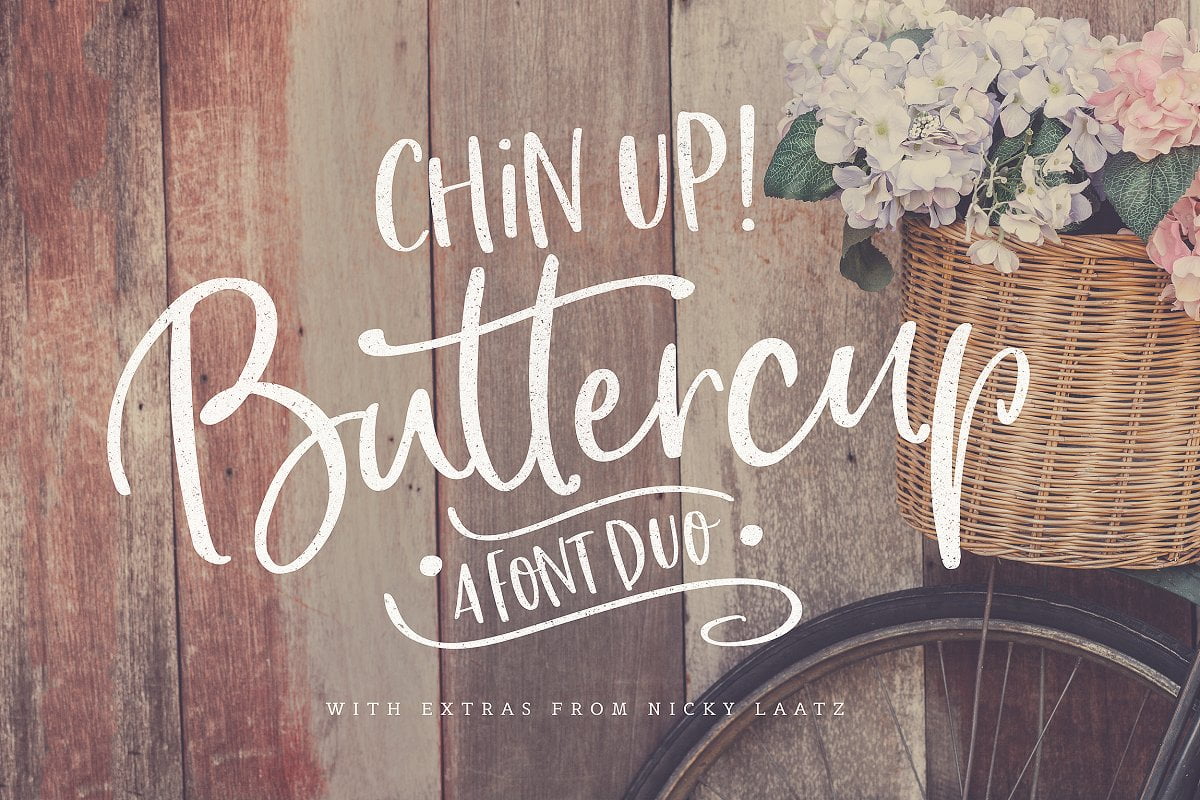
Chin up buttercup font family detail’s i want to introduce everyone to chin up buttercup! It is best to use it for tags, scrapbooking, signs, window art, photos, website, wall art, branding, quotes, cards, and.
A perfectly playful new font pair with a handy set of complimentary illustrations.
Creative and casual, together or apart, chin up buttercup fonts and illustrated doodles allow you to make tons of gorgeous typographic designs in a jiffy, just in time for all your. Chin up buttercup font is an elegant calligraphy typeface. A perfectly playful new font pair with a handy doodle font consisting of 40 complimentary illustrations.
A perfectly playful new font pair with a handy set of complimentary illustrations. Creative and casual, together or apart, chin up buttercup fonts and illustrated doodles allow you to make tons of gorgeous typographic designs in a jiffy, just in time for all your christmas labels, cards and branding too!. Creative and casual, together or apart, chin up buttercup fonts and illustrated doodles allow you to make tons of gorgeous typographic designs in a jiffy, just in time for all your.
This font is free for personal use only. Consisting of a script, a. Consisting of a script, a cute sans serif and a handy doodles font, chin up buttercup are perfect companions for designing greeting cards, quotes, typographic designs, wall art, branding, packaging, websites, photo & photography overlays,.
A perfectly playful new font pair with a handy set of complimentary illustrations. Chin up buttercup contains 3 styles and family package options. Perfect for diy projects, greeting cards, labels, quotes.
Consisting of a script, a cute sans serif and a handy doodles font, chin up buttercup are perfect companions for designing greeting cards, quotes, typographic designs, wall art, branding, packaging, websites, photo & photography overlays,. This calligraphy font is the perfect script typeface for making outstanding and original designs. Creative and casual, together or apart, chin up buttercup fonts and illustrated doodles allow you to make tons of gorgeous typographic designs in a jiffy, just in time for all your christmas labels, cards and branding too!
Chin up buttercup font is an elegant calligraphy typeface. St mark's lion, venice by marc scottparkin / 500px in. A perfectly playful new font pair with a handy doodle font consisting of 40 complimentary illustrations.
It is a new font pair with a doodle font that consists of 40 illustrations. A perfectly playful new font pair with a handy doodle font consisting of 40 complimentary illust. Consisting of a script, a cute sans serif and a handy doodles font, chin up buttercup are perfect companions for designing greeting cards, quotes, typographic designs, wall art, branding, packaging, websites, photo & photography overlays,.
It’s perfect for adding a touch of class to your designs or making elegant stylish statements.